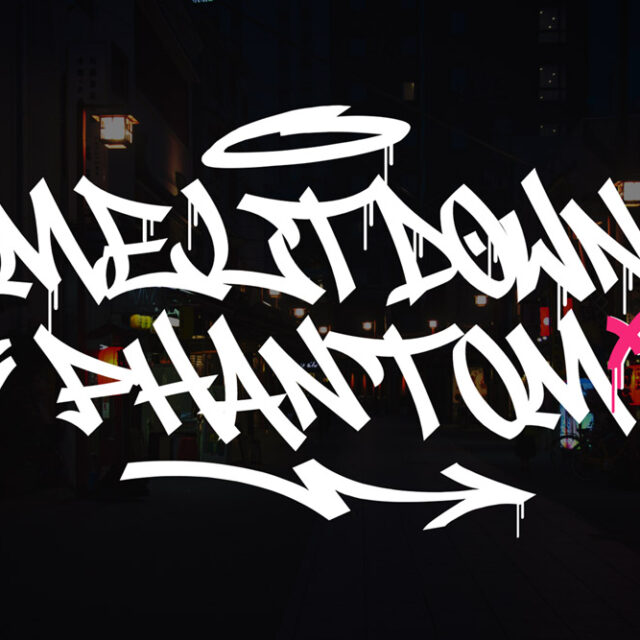
Meltdown Phantom – Dripping Handwritten Graffiti Font
Meltdown Phantom
Dripping Handwritten Graffiti Font
Meltdown Phantom, an urban graffiti font that’s loud, rebellious, and unapologetically bold. This font captures the energy of real street tagging, handcrafted to look raw and explosive on any design.
About Meltdown Phantom
Wild. Street-Ready: Meltdown Phantom – Urban Handwritten Graffiti Font with Multilingual Support
Introducing Meltdown Phantom, an urban graffiti font that’s loud, rebellious, and unapologetically bold. This font captures the energy of real street tagging, handcrafted to look raw and explosive on any design. Whether you’re designing for streetwear, album artwork, posters, or urban merchandise, Meltdown Phantom gives your message a graffiti-style punch.
Now available in three powerful styles:
• Meltdown Phantom Regular
• Meltdown Phantom Drip
• Meltdown Phantom Swash (Regular & Drip)
Each variation brings a unique edge, designed to reflect real-world graffiti aesthetics, with sweeping lines, dripping forms, and natural movement inspired by spray can lettering.
Key Features:
• Uppercase and Lowercase Characters – dynamic, expressive, and street-inspired
• 3 Font Styles – Regular, Drip, and Swash variants for ultimate flexibility
• Multilingual Support – includes characters for extended Latin alphabets
• Handwritten graffiti style – designed with real street rhythm and attitude
• Perfect for branding, streetwear, posters, album covers, and more
Why Designers Love Meltdown Phantom
Designers around the globe love Meltdown Phantom because it doesn’t play it safe. This font is raw, aggressive, and full of character, allowing you to communicate attitude and authenticity in every design. The three styles offer flexible choices for tone — from clean street tags to dripping chaos and swashy emphasis.
The new Swash variant gives an added layer of expression with wide tail extensions and custom strokes that simulate fast, freestyle graffiti throw-ups. Whether you go clean or go wild, Meltdown Phantom adapts while always staying real.
Speak Loud, Look Loud
With its sharp cuts, bold strokes, and exaggerated forms, Meltdown Phantom ensures your text stands out in any medium. The Drip and Swash styles allow you to push your creative direction to the next level — whether you’re creating gritty posters, tagging on digital walls, or printing bold statements on apparel.